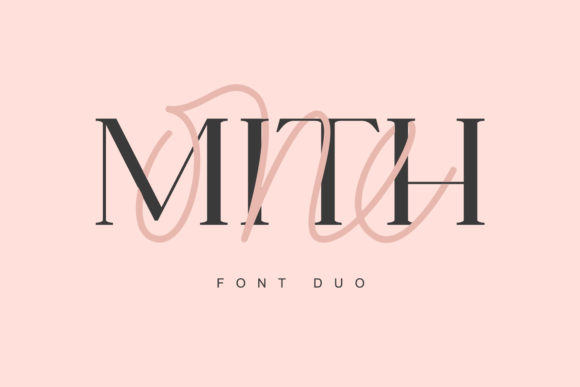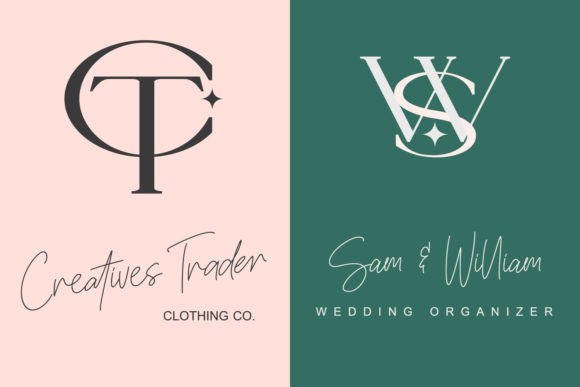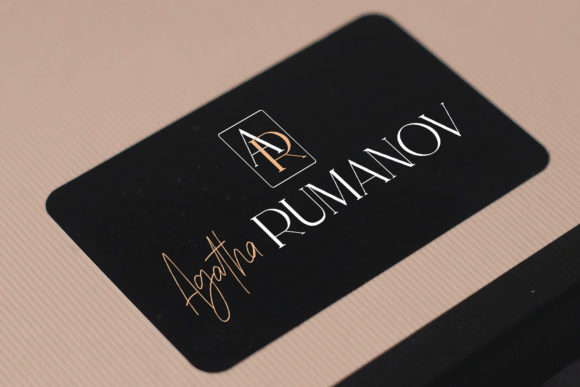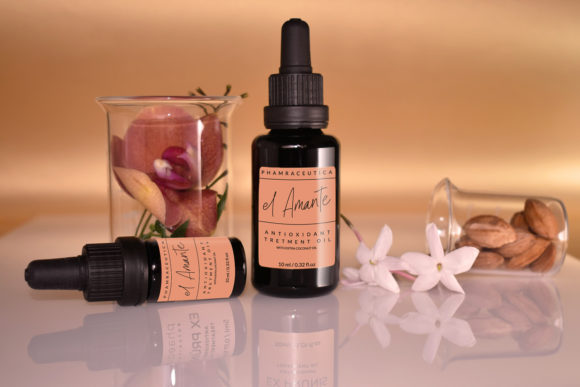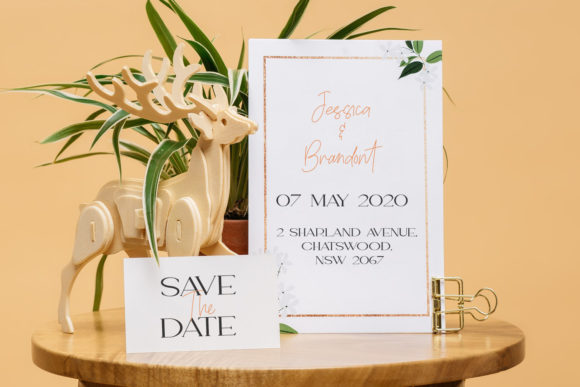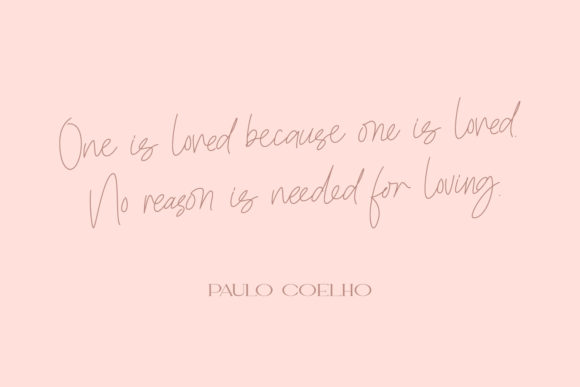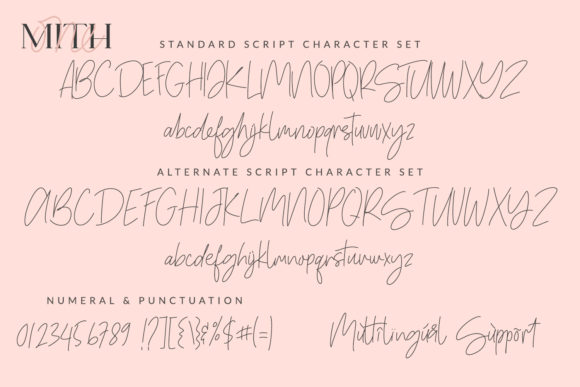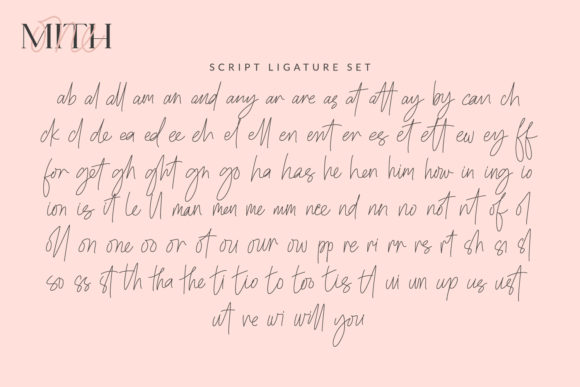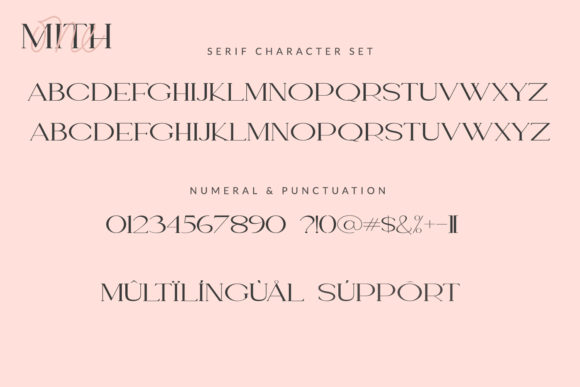
One Mith Font
About One Mith Font
One Mith font duo is a match made in heaven! The cute signature monoline-style font perfectly complements the elegant serif font. Combining these two fonts on your next design will give a modern and sophisticated feel. Fall in love with its authentic feel and use it to create gorgeous wedding invitations, beautiful stationary art, eye-catching social media posts, and cute greeting cards.